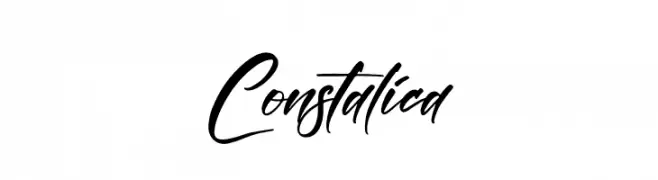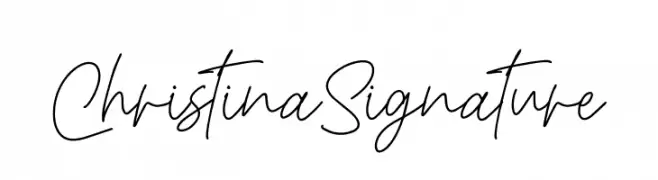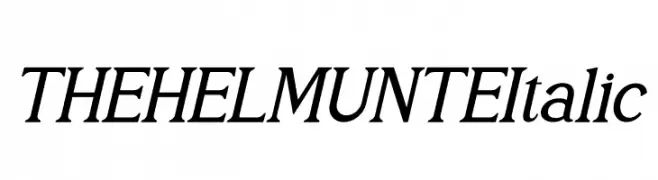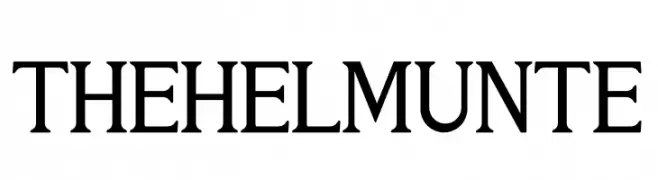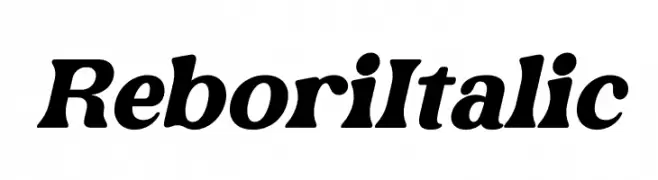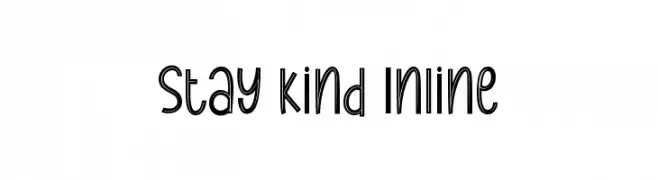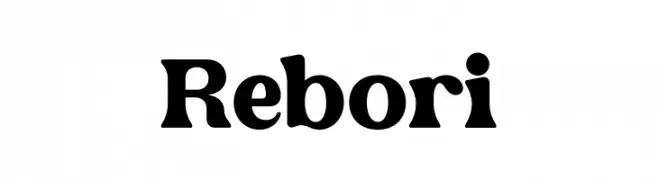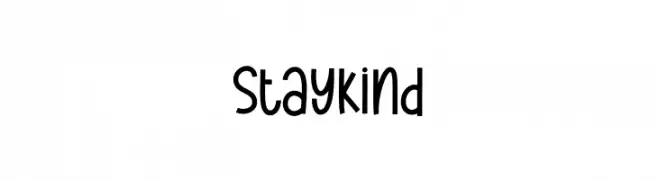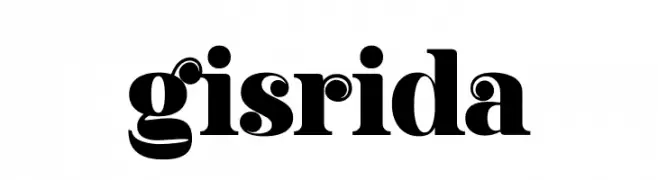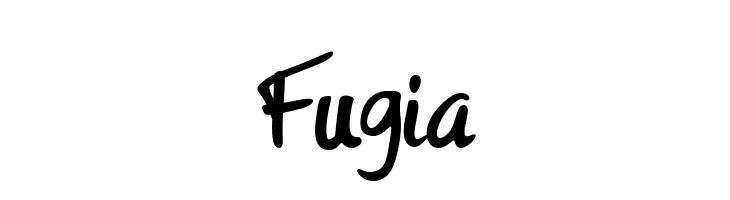
A dynamic and flowing script font with elegant, fluid strokes.
An elegant, flowing script font with graceful, connected letters and high contrast.
Elegant cursive font with a handwritten signature style.
An elegant italic serif font with a classic and sophisticated style.
A classic serif font with elegant curves and strong presence.
A bold, italic font with dynamic strokes and strong visual impact.
A playful, inline decorative font with a modern twist.
A bold, expressive serif font with rounded serifs and a strong visual impact.
A playful, rounded font with a modern and friendly style.
A bold, decorative font with elegant swirls and flourishes.